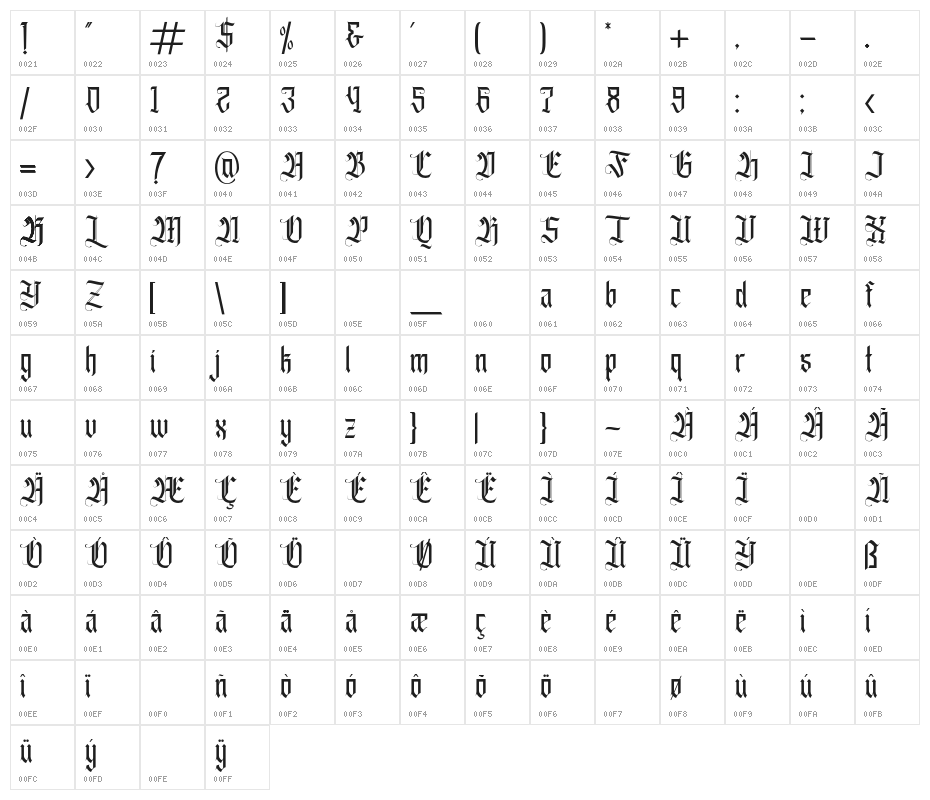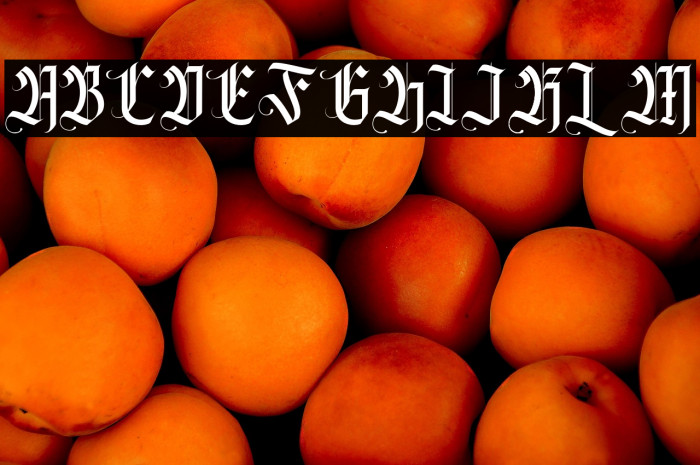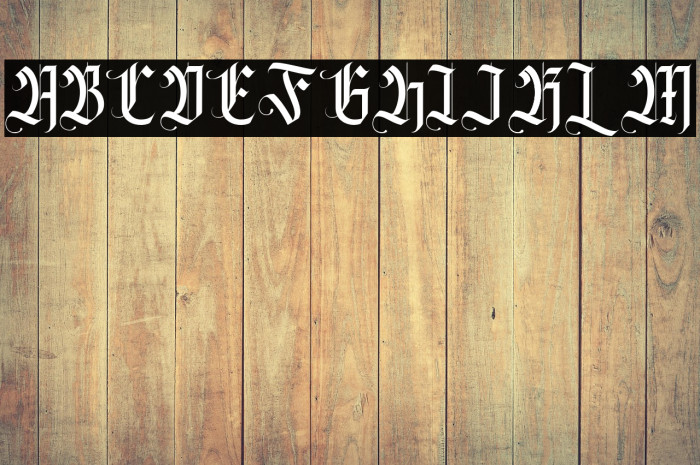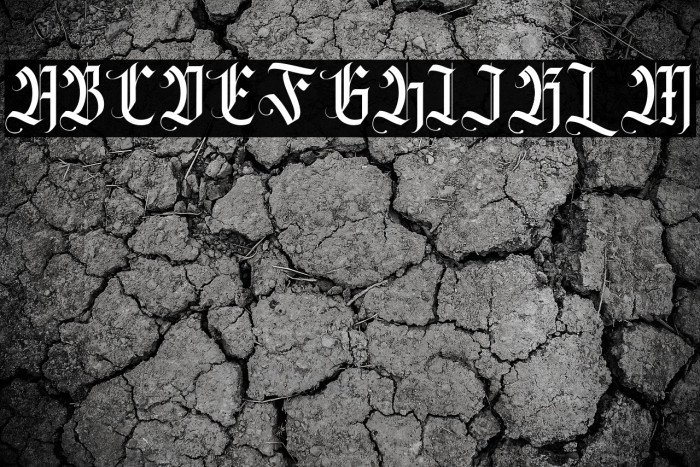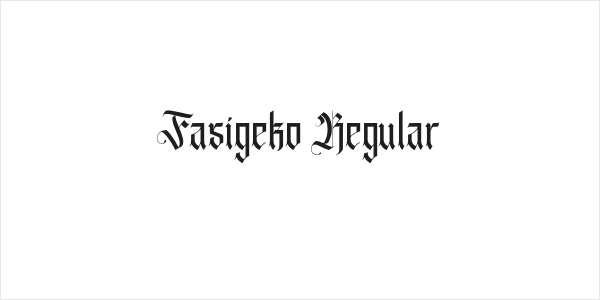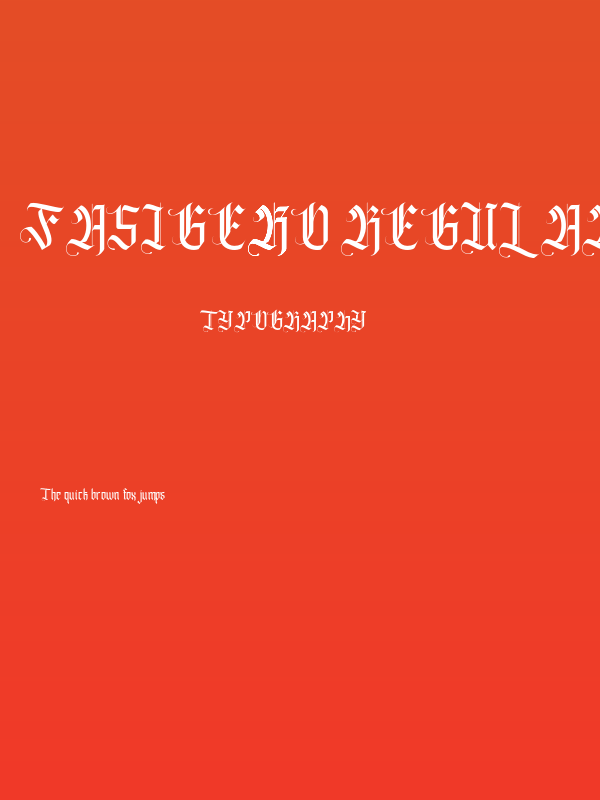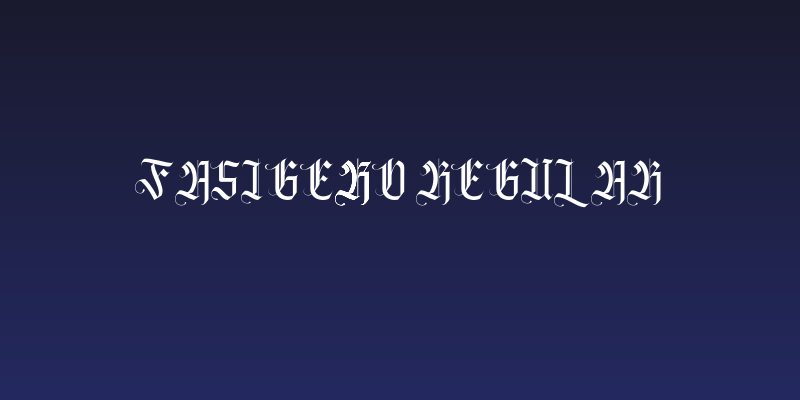
Fasigeko Regular Font
Fasigeko Regular Description
This font features a bold and intricate design, reminiscent of traditional blackletter styles. The uppercase letters are adorned with elaborate flourishes and sharp angles, giving them a dramatic and authoritative appearance. The lowercase letters maintain a consistent style, with strong vertical lines and pointed serifs that enhance readability while preserving the font's ornate character. The numerals are equally bold, with a uniform height and width that ensure clarity. Special characters are designed with the same attention to detail, incorporating the font's signature flourishes and angular elements. This font's overall aesthetic is both historical and striking, making it suitable for projects that require a touch of elegance and tradition.
| Proposed Projects | Ideal for historical documents, certificates, book covers, and branding that requires a traditional or gothic touch. |